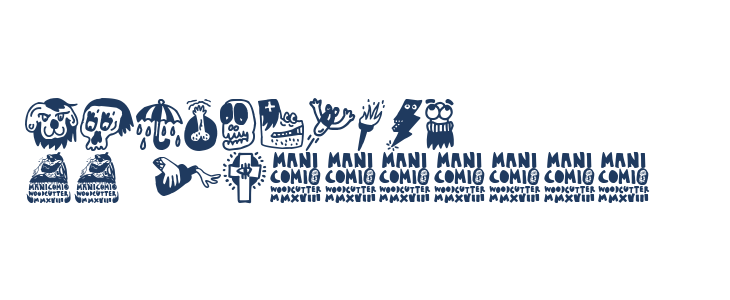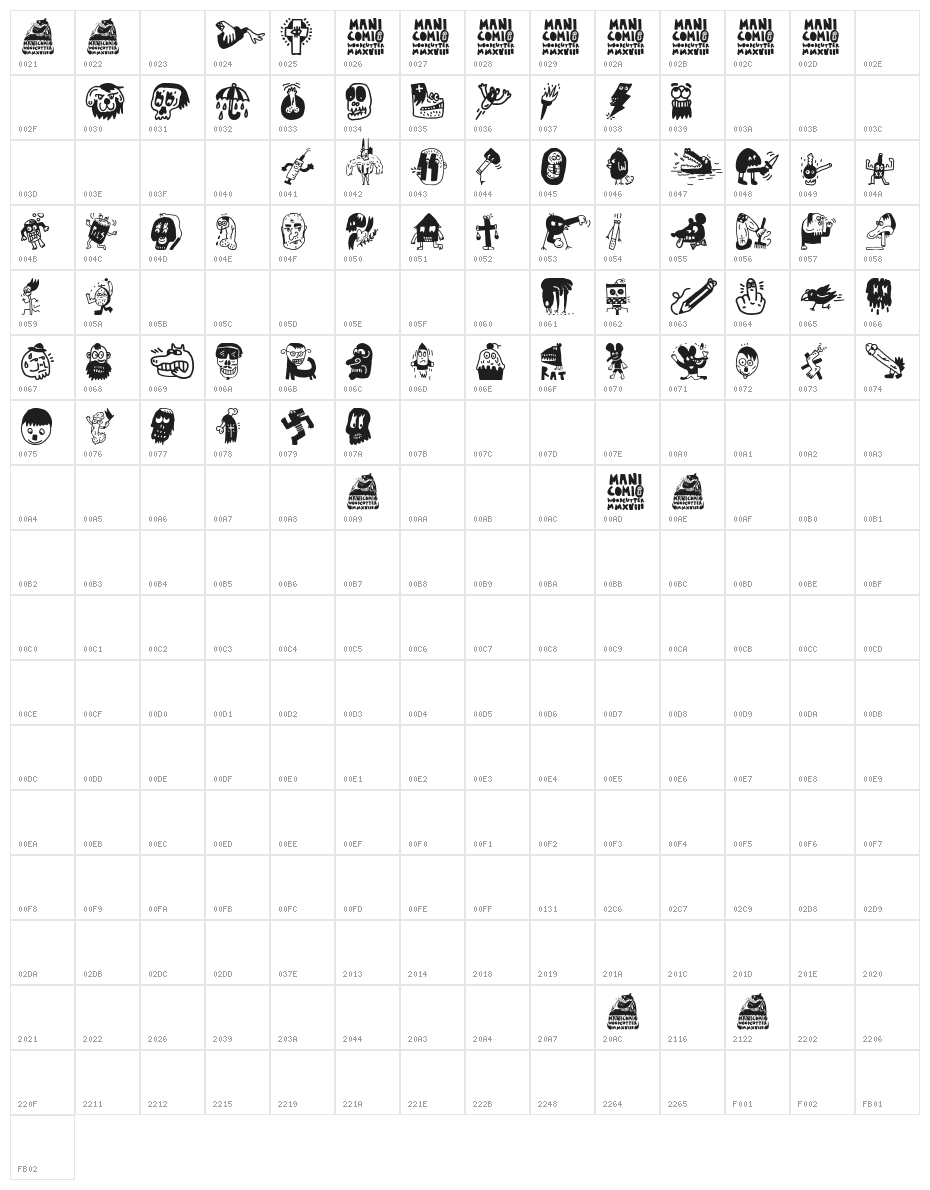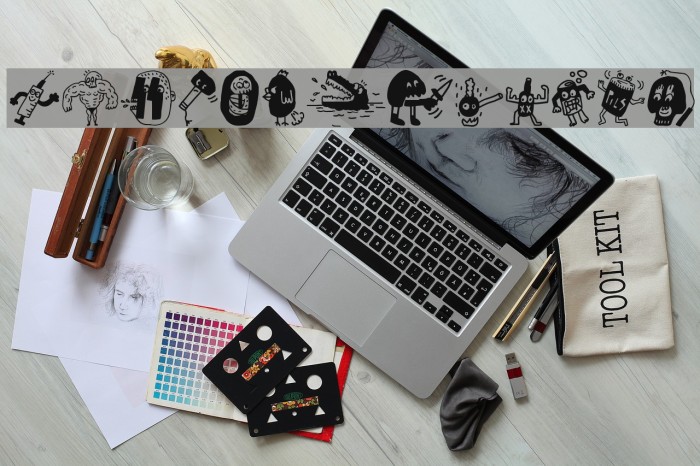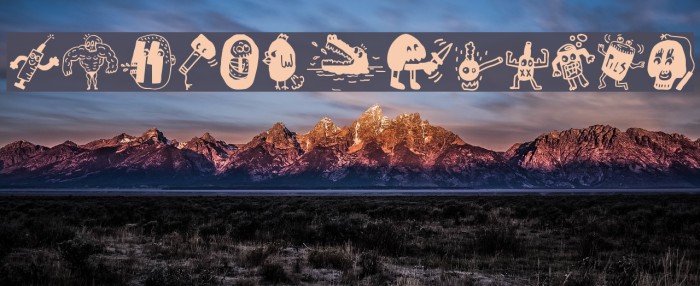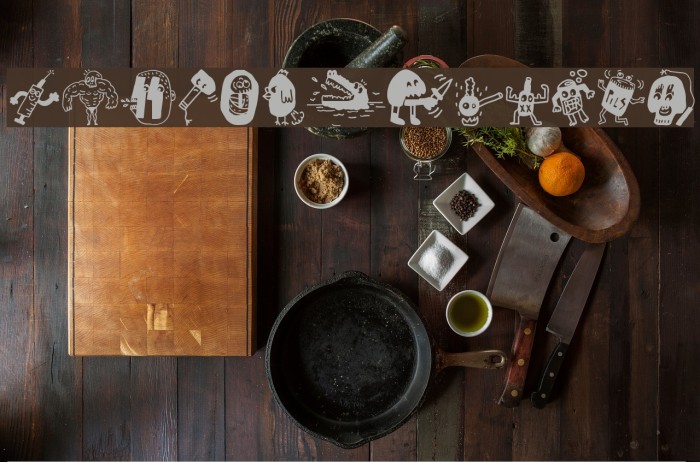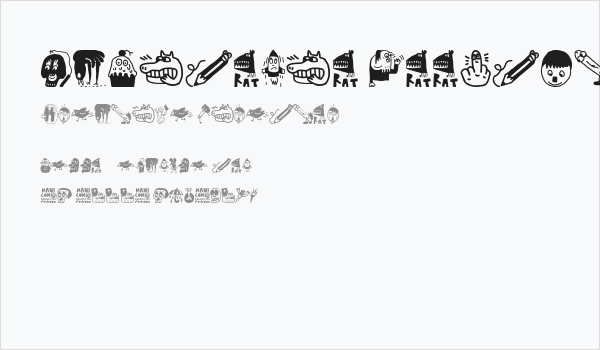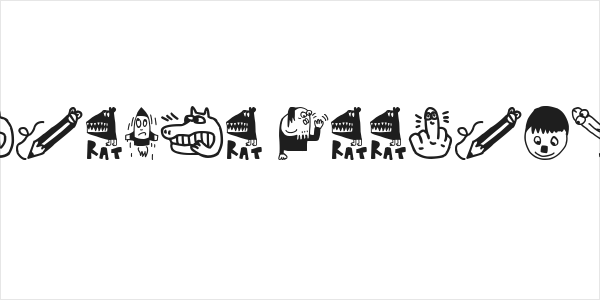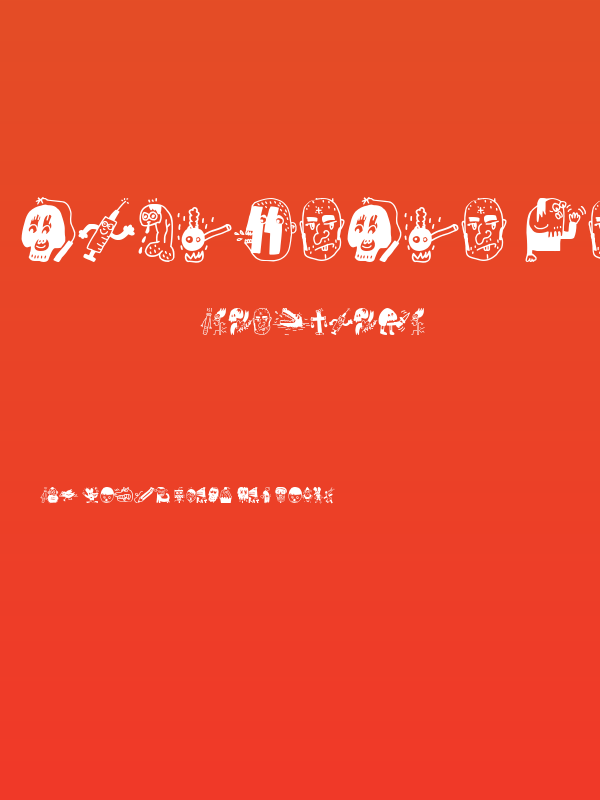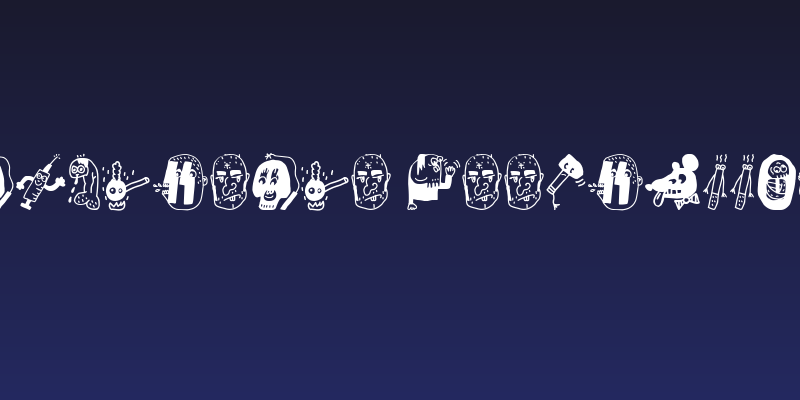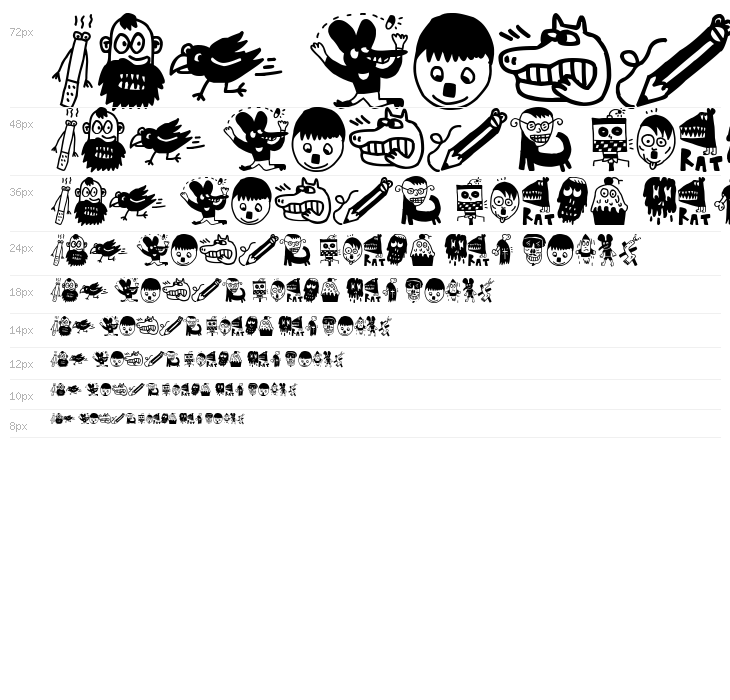
Manicomio Woodcutter Font
Manicomio Woodcutter Description
This font is a highly creative and illustrative typeface that incorporates whimsical and bizarre character designs. Each letter is represented by a unique and playful illustration, often featuring cartoonish and exaggerated figures. The style is bold and eye-catching, with a strong emphasis on visual storytelling through each character. The font's design is reminiscent of comic book art, with a mix of humor and dark, quirky elements. The characters are densely packed with intricate details, making it a decorative choice for projects that require a strong visual impact.
| Use Case | Logos, Posters, Creative Branding |
| Proposed Projects | Ideal for comic books, graphic novels, posters, and creative branding projects. |